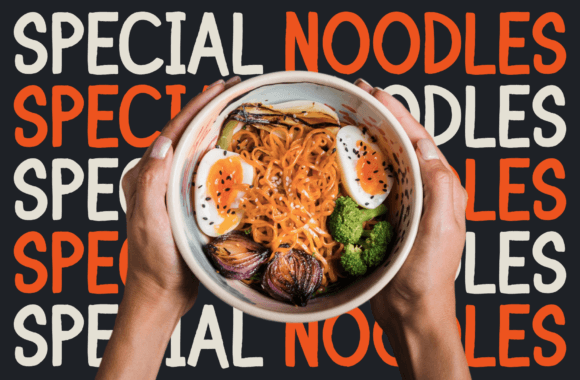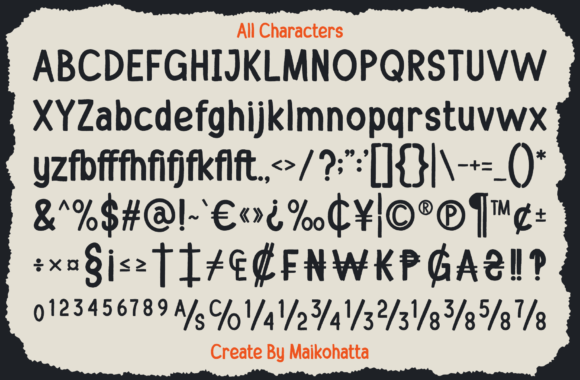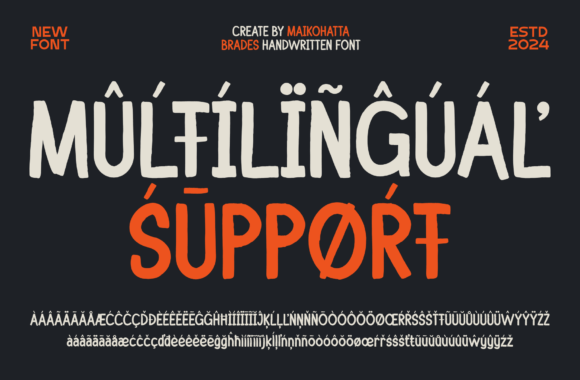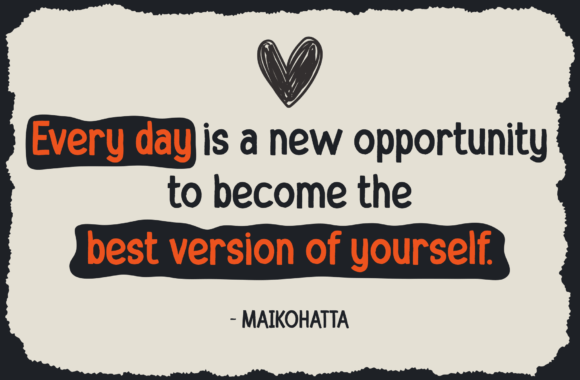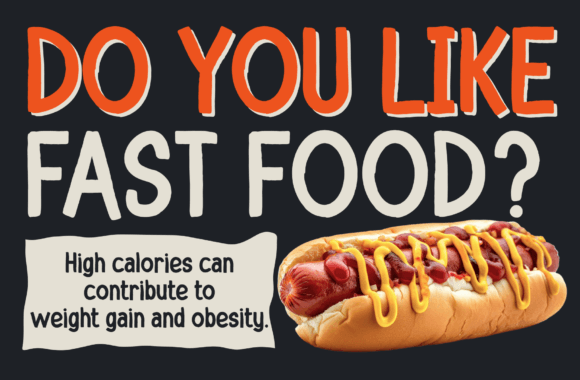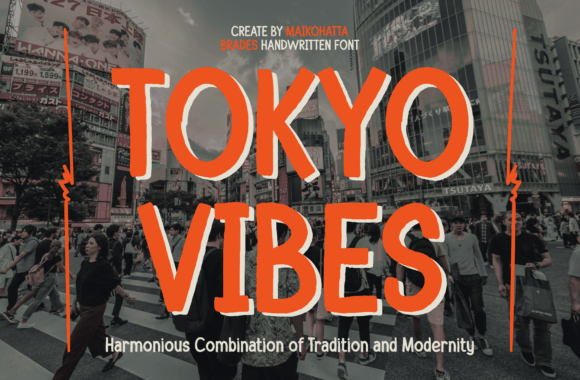
Introducing Brades Font: Elevate Your Designs with a Modern Handwritten Typeface
In the world of graphic design and modern typography, the right font can make all the difference. A well-crafted typeface can elevate your designs, convey your message with clarity, and leave a lasting impression on your audience. We’re excited to introduce Brades, a new handwritten typeface that embodies flexibility, simplicity, and visual appeal.
What is Brades Font?
Brades is a carefully crafted handwritten font designed to provide a clean, professional, and contemporary look. Its unique blend of elegance and simplicity makes it an excellent choice for a wide range of design contexts. Whether you’re working on a branding project, creating a poster, or designing a website, Brades is the perfect companion to help you achieve your creative vision.
Key Features of Brades Font
- Flexibility: Brades is a versatile font that can be used in various design contexts, from digital media to print materials.
- Clean and Professional: The font’s clean lines and professional look make it suitable for corporate designs, such as logos, business cards, and letterheads.
- Contemporary Aesthetic: Brades boasts a modern and fresh look, perfect for designers who want to create a trendy and youthful vibe.
- Simplicity: The font’s simple yet elegant design ensures that your message is conveyed clearly, without any distractions.
- Visual Appeal: Brades is designed to capture attention and leave a lasting impression on your audience.
Why Choose Brades Font?
With so many fonts available, why choose Brades? Here are a few compelling reasons:
- Uniqueness: Brades offers a distinctive look that sets it apart from other fonts, ensuring your designs stand out from the crowd.
- Readability: The font’s clear and legible design makes it easy to read, even at small sizes.
- Customizability: Brades can be easily customized to fit your brand’s style, making it a great investment for designers and businesses.
- Time-Saving: With Brades, you can save time and effort in finding the perfect font for your project, allowing you to focus on the creative aspects of design.
Brades Font in Graphic Design and Modern Typography
In the world of graphic design and modern typography, Brades is an excellent choice for a variety of applications, including:
- Branding: Use Brades to create a consistent visual identity for your brand, including logos, business cards, and letterheads.
- Digital Media: Brades is perfect for digital media, such as social media graphics, blog posts, and website designs.
- Print Materials: The font is suitable for print materials, including brochures, flyers, posters, and more.
In conclusion, Brades is a versatile and stylish handwritten typeface that can elevate your designs and help you achieve your creative vision. Its unique blend of elegance, simplicity, and visual appeal makes it an excellent choice for designers and crafters looking for a modern and professional font. Try Brades today and discover the difference it can make in your designs!